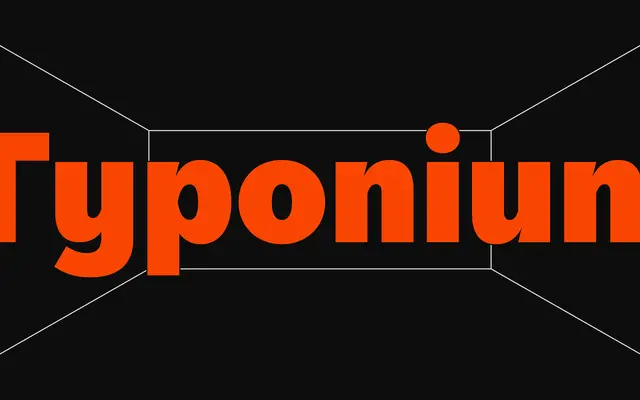
Typonium specimen from Dharma Type
A geometric sans in eight weights with reverse ink-traps at stem-bowl junctions, creating a tension between soft rounded forms and sharply defined contours.
Built on circular bowls and minimal forms referencing Bauhaus and universal design, the family uses reverse ink-traps where stems meet bowls to introduce visual tension against otherwise warm, rounded strokes. Ascenders and descenders carry the same gentle roundness throughout, keeping the overall tone approachable. Eight weights each with a matching italic give it a broad range across body text and display settings.
Built on simple geometric forms with circular bowls, drawing from Bauhaus and universal design principles. The soft roundness and minimalist construction firmly place it in the geometric sans tradition.